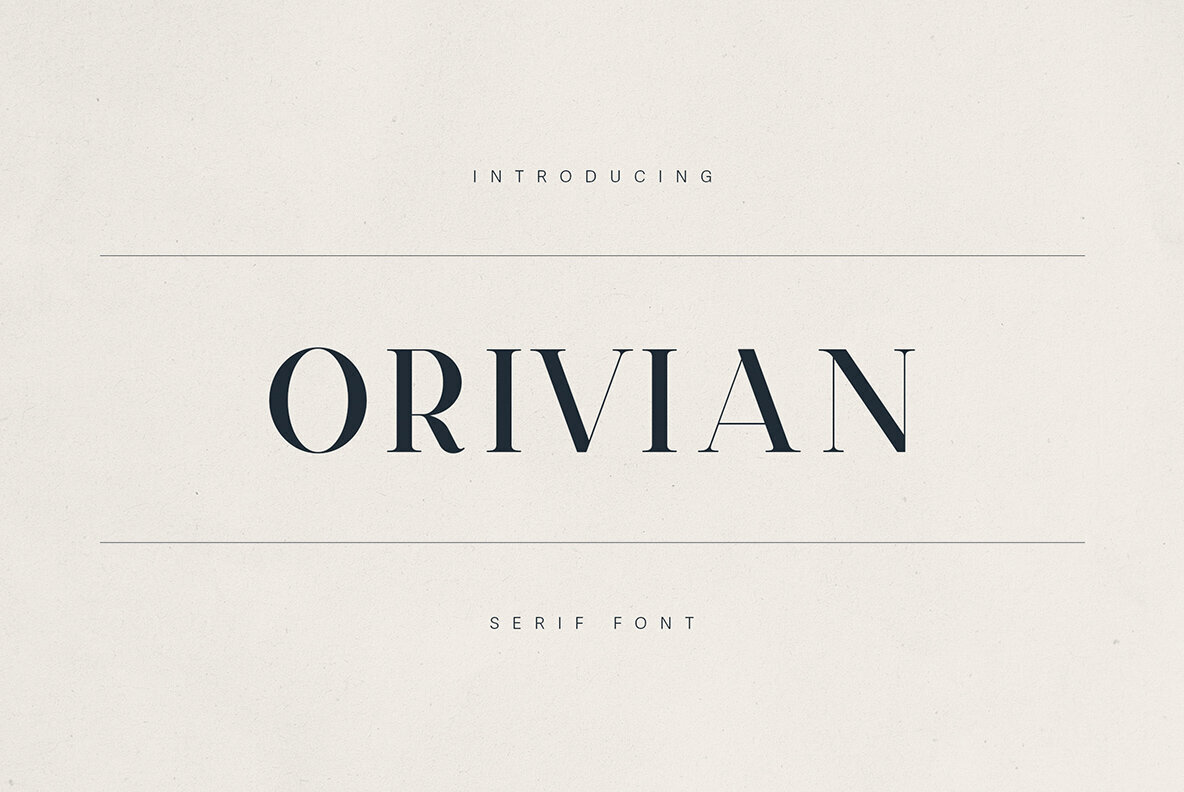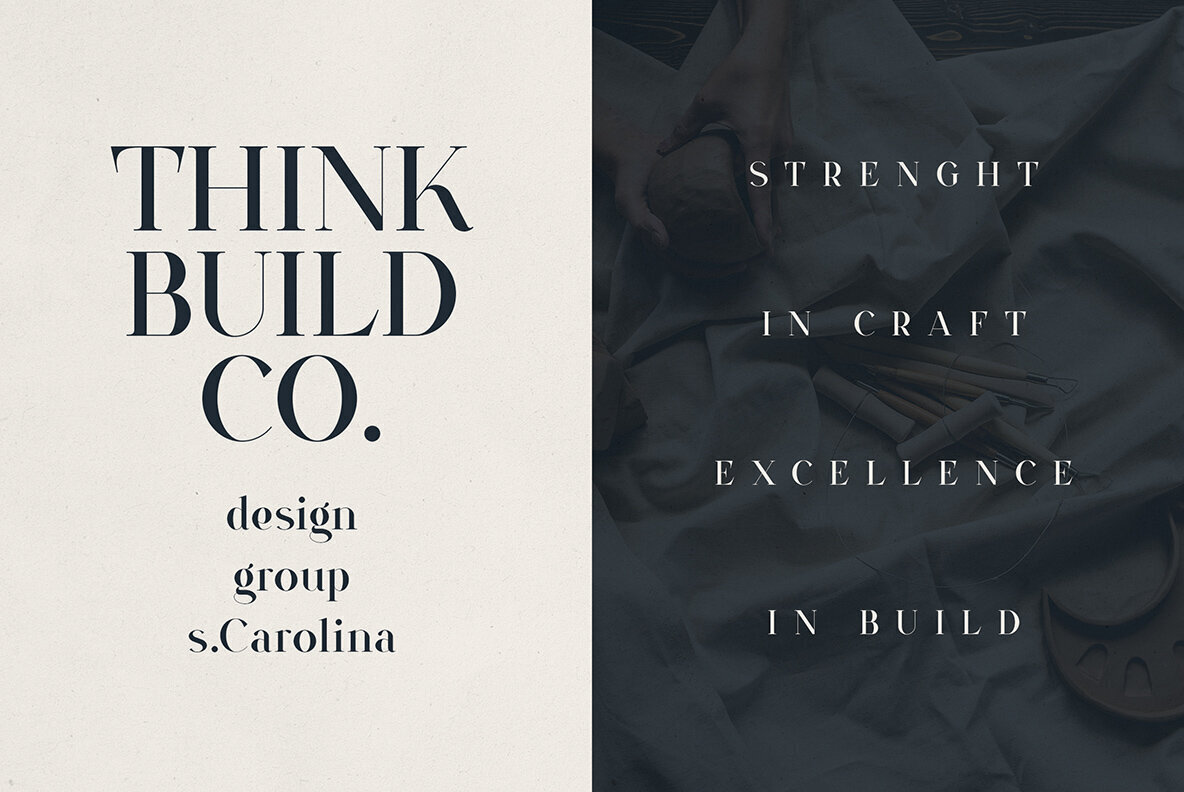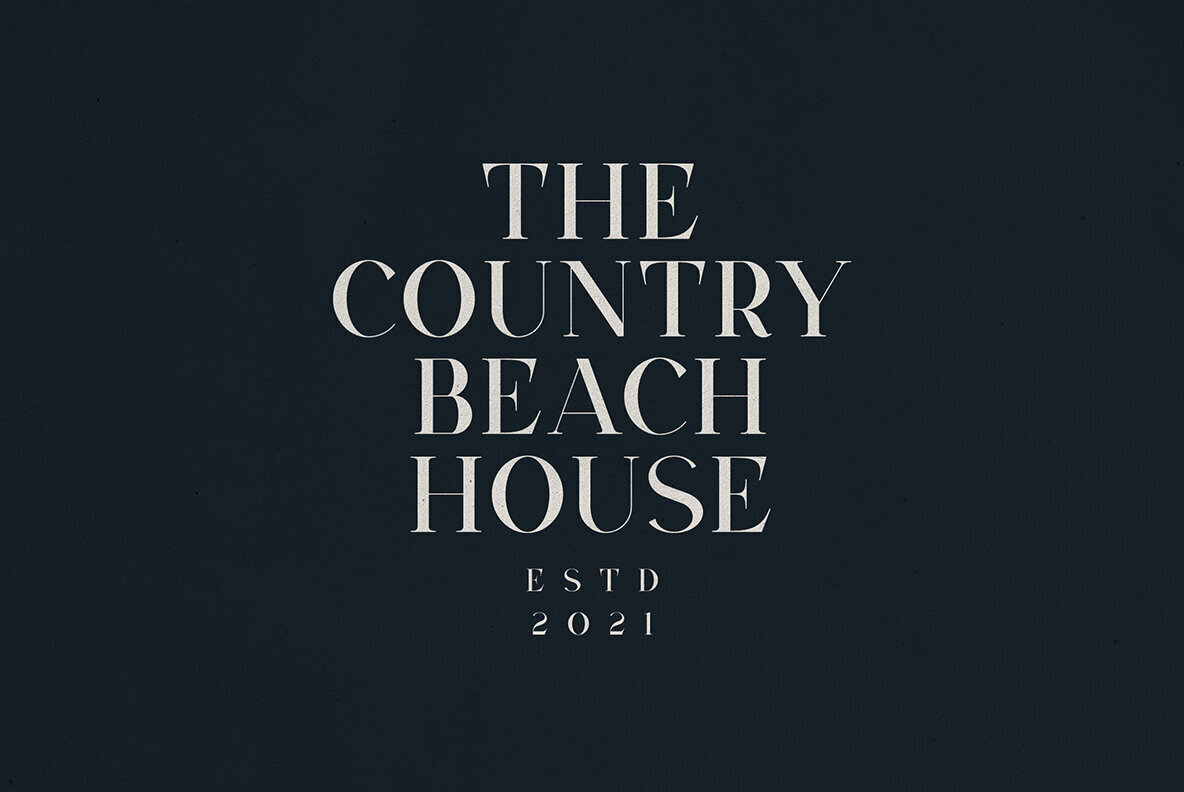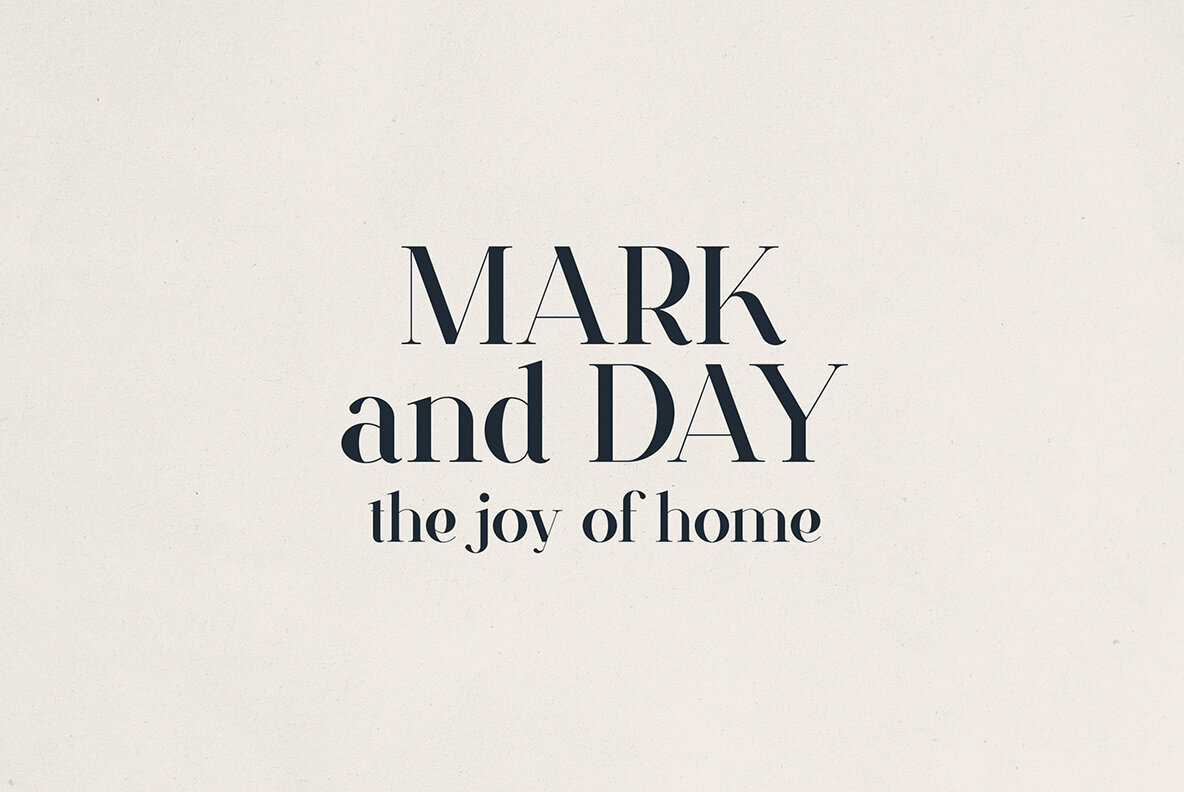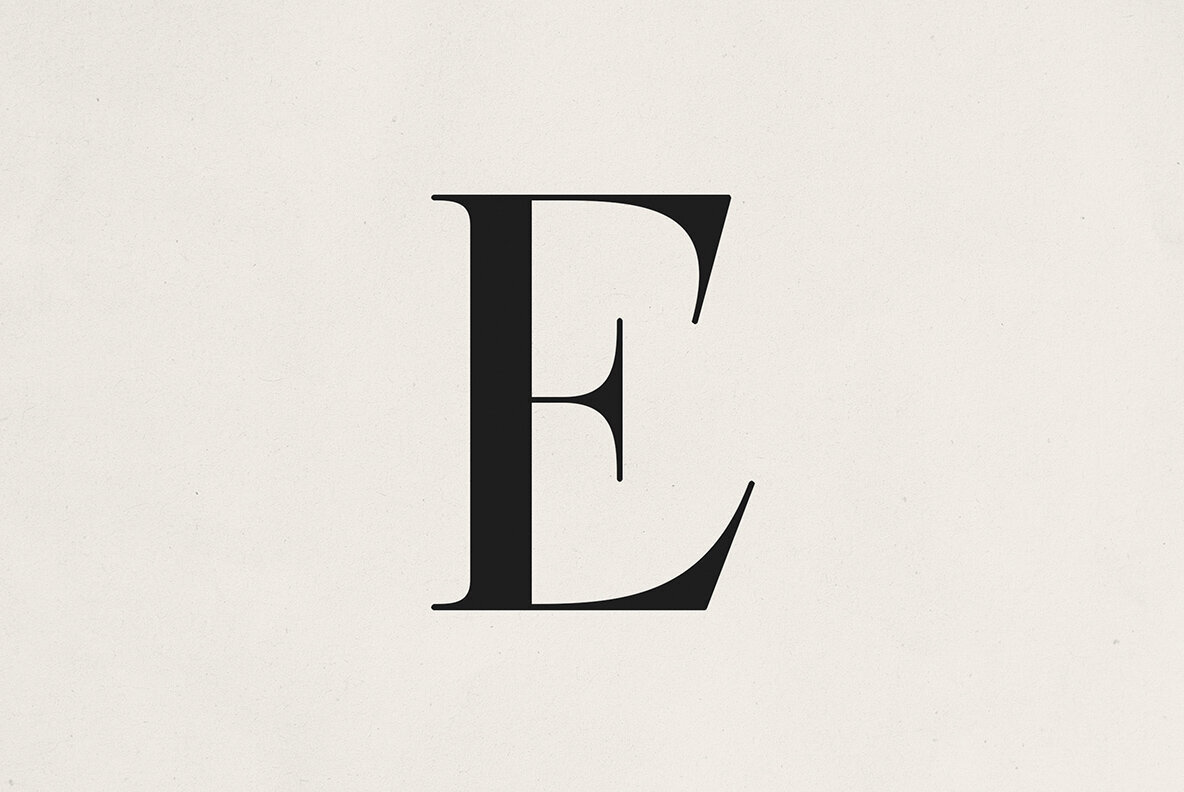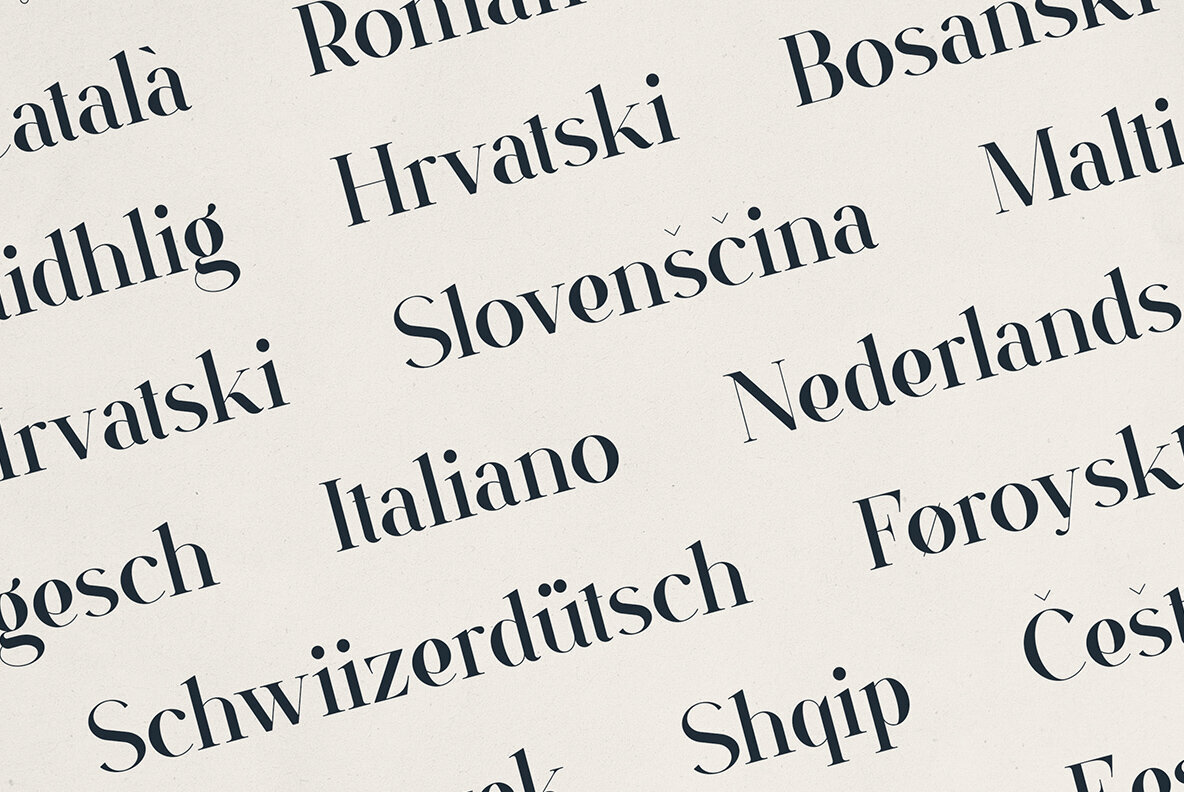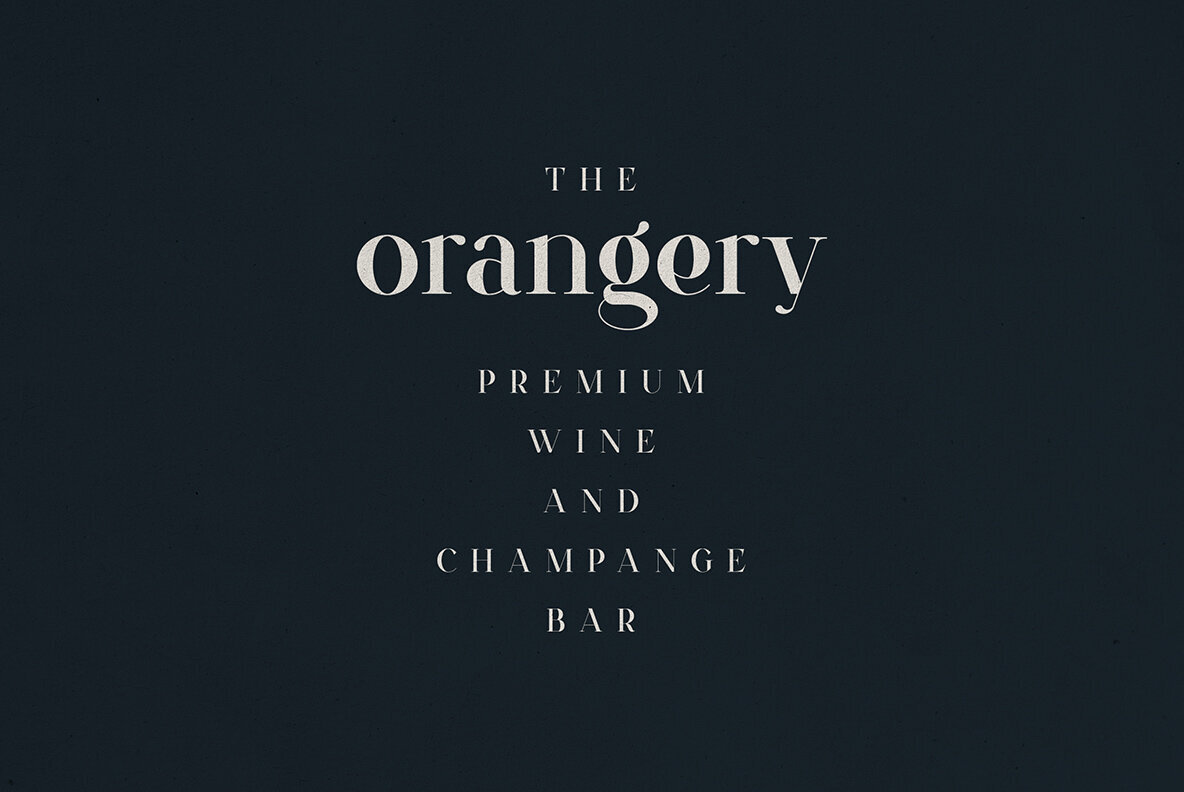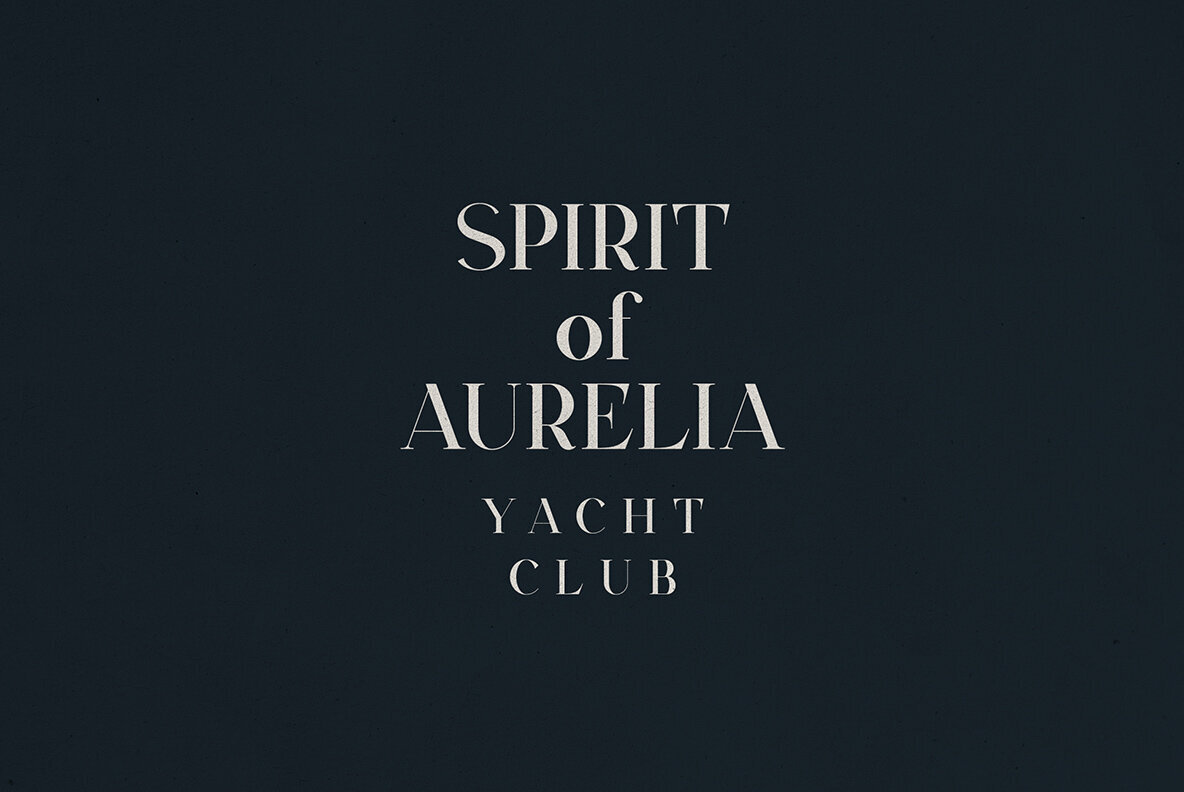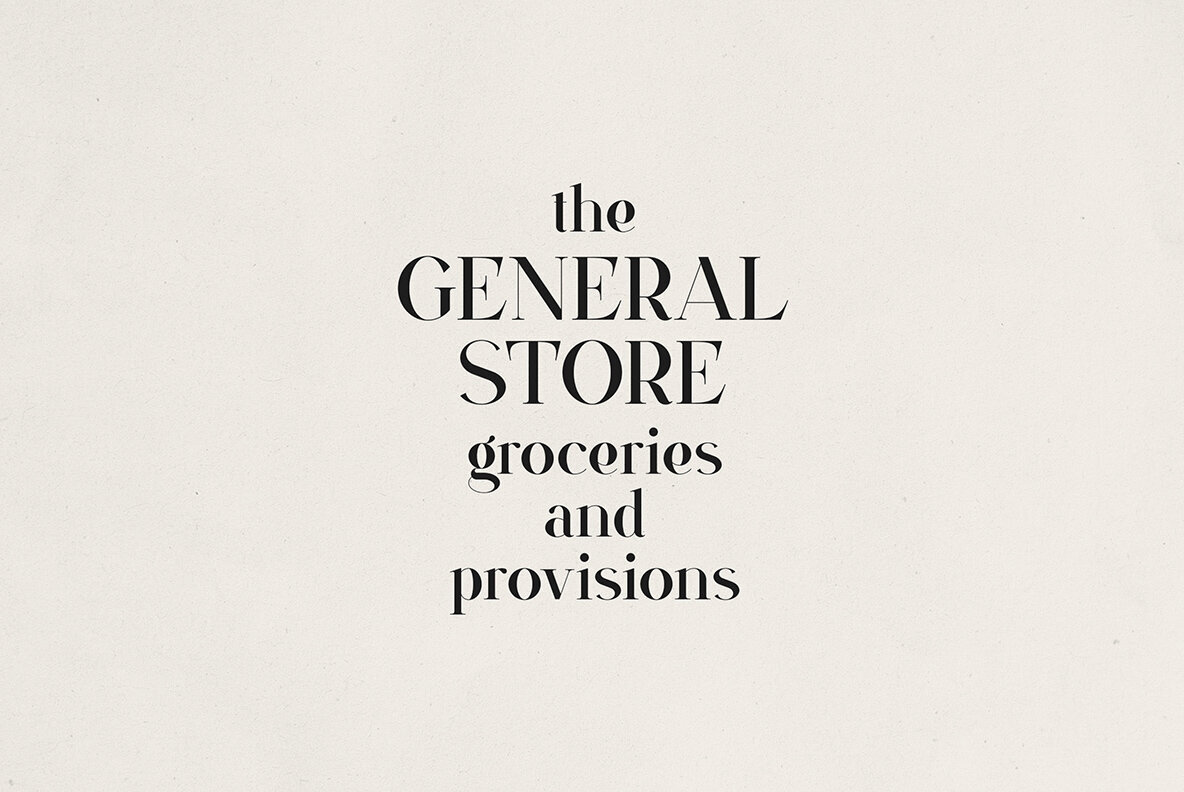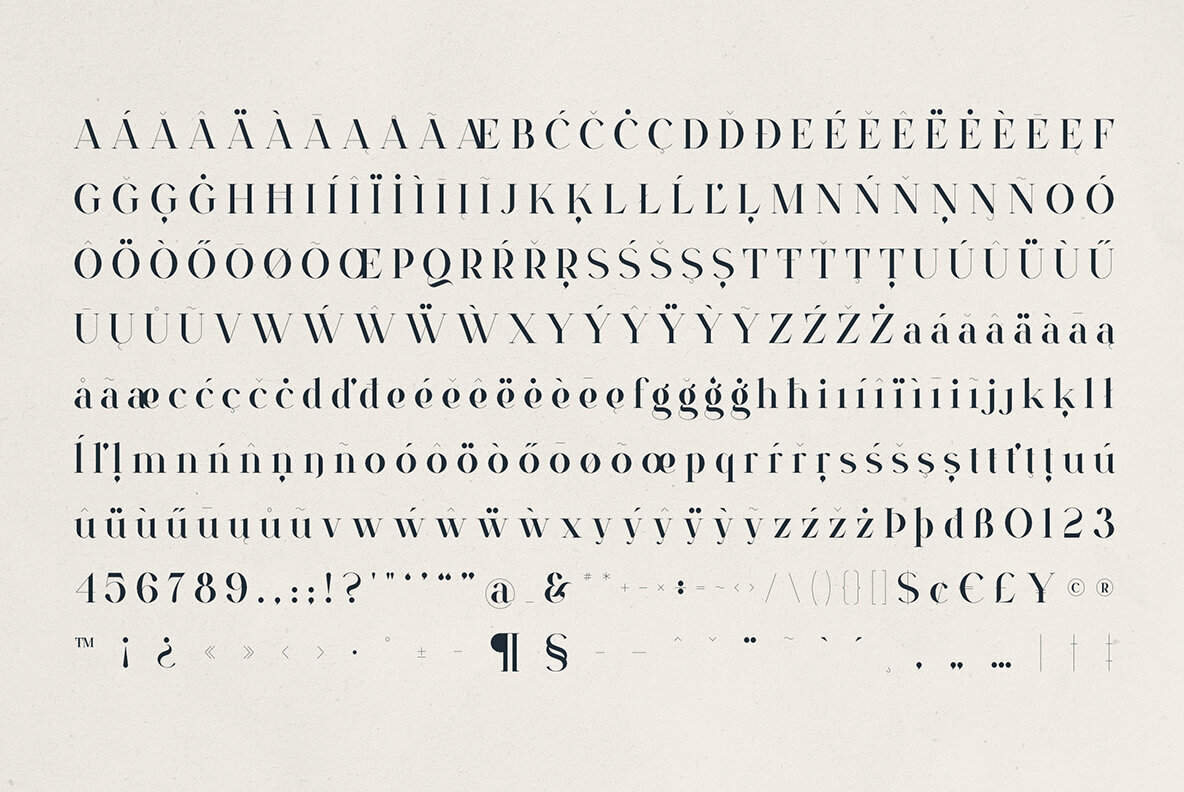
Orivian Font
Orivian Regular
Discover Orivian, a high-contrast serif font that embodies timeless elegance with contemporary flair. Featuring sharp serifs, refined curves, and a confident vertical stress, Orivian marries modern minimalism and classic typographic tradition seamlessly. Perfect for premium branding, editorial design, and luxurious packaging, this typeface is the choice for designers desiring both impact and charm. Its tall letterforms and pronounced contrast make it ideal for headlines, logos, and upscale identity systems, while subtle curves provide a warm, humanist touch. Whether you're designing for a boutique hotel, a luxury wine label, or a modern lifestyle magazine, let Orivian enhance your visual language with elegance and confidence. Embrace its extensive language support that spans across many linguistic needs, solidifying its place in global design projects.Orivian: A Refined High-Contrast Serif Font